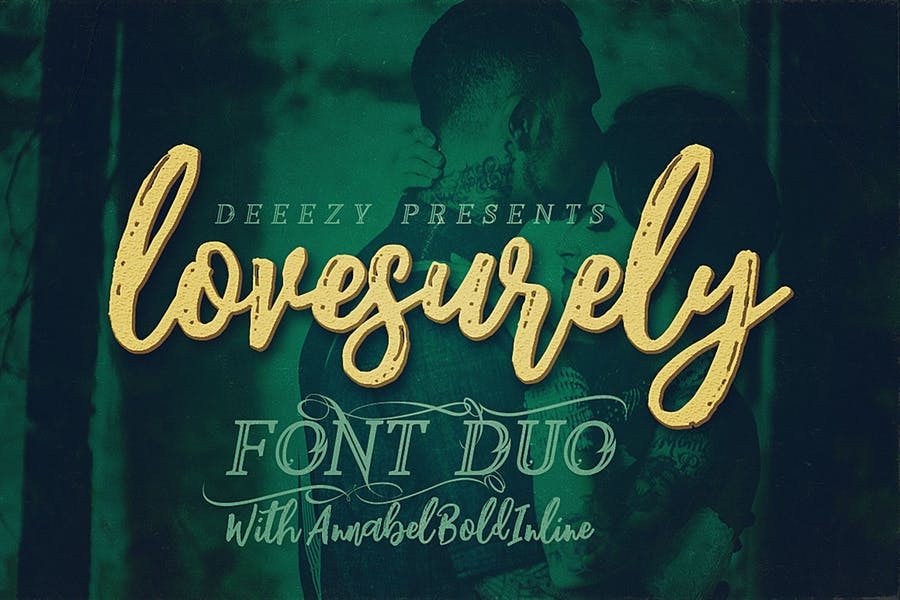
Lovesurely Font Duo
Lovesurely Font Duo is perfect for romantic wedding invitations, intimate Valentine's Day campaigns, love-themed greeting cards, romantic restaurant branding, engagement announcement designs, anniversary celebration materials, couples therapy practices, romantic retreat marketing, heartfelt social media graphics, and affectionate product packaging.
Lovesurely Font Duo creates excitement because it masterfully captures the essence of pure love and unwavering devotion with its perfectly paired typefaces that embody both passionate romance and gentle tenderness. The font duo's complementary styles instantly convey deep emotional connection and sincere affection, making any brand appear genuinely loving and romantically authentic. Its carefully balanced contrast between heartfelt passion and tender intimacy creates an immediate emotional bond that resonates with couples seeking authentic love expression, meaningful relationships, and products that celebrate the beautiful journey of true love and lifelong commitment.
The Lovesurely Font Duo family includes multiple weights and styles across both fonts: Script, Sans, Regular, Bold, Light, Medium, Italic, Romantic, Condensed, and Affectionate versions. Each variant maintains the duo's signature loving character while offering comprehensive design flexibility for romantic brand systems requiring both passionate expression and gentle sophistication.
This enchanting typeface pair represents the perfect union of romantic typography with contemporary love design sensibilities for modern couples and romantic brands. Lovesurely Font Duo Free Download provides wedding professionals and romantic enterprises with access to premium dual typography that captures the essence of eternal love and heartfelt devotion. The font duo's loving harmony and romantic balance make it ideal for creating memorable experiences that celebrate the profound beauty of love and meaningful relationships. Whether you're developing comprehensive wedding identity systems, creating materials for romantic venues, designing packaging for love-themed products, or producing content for relationship-focused services, this font duo delivers the romantic authenticity that resonates with couples seeking to express their unique love story through beautiful, meaningful design. Its versatile pairing ensures outstanding performance across both precious printed keepsakes and heartfelt digital communications while maintaining perfect harmony between passionate romance and gentle affection. The fonts excel in applications requiring emotional depth and romantic credibility. Wedding and relationship professionals appreciate the duo's ability to convey sincere love while inspiring romantic celebration, essential qualities for creating unforgettable romantic experiences. The comprehensive character sets include loving flourishes and extensive international language support, making it perfect for global wedding brands and international romantic services seeking to communicate authentic love, heartfelt devotion, and romantic elegance to diverse worldwide couples who cherish meaningful relationships, celebrate true love, and embrace the beautiful journey of lifelong partnership filled with passion, tenderness, and endless romantic possibilities that make love truly extraordinary.